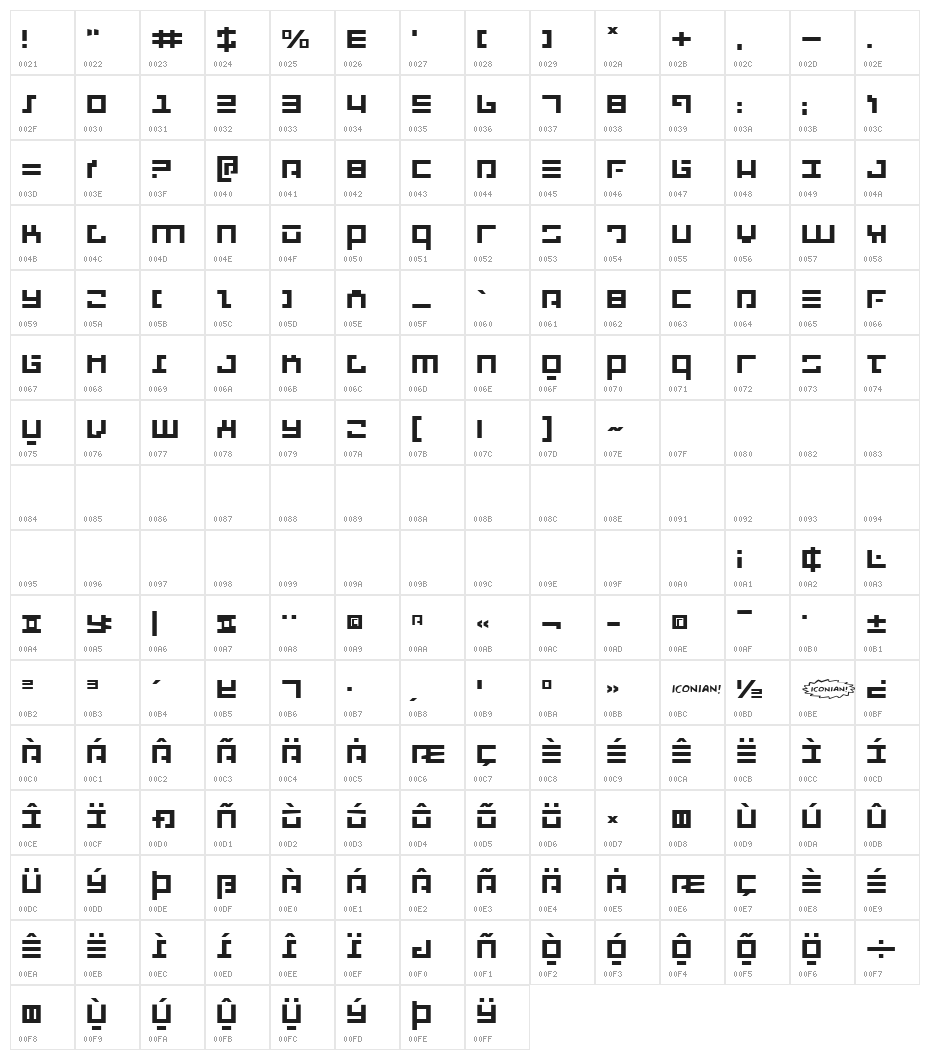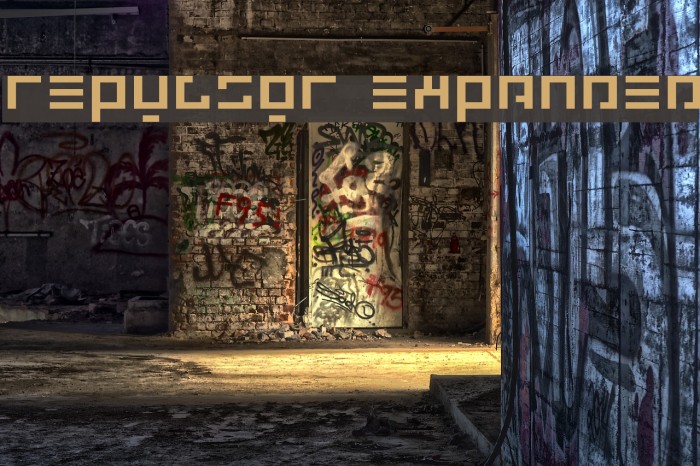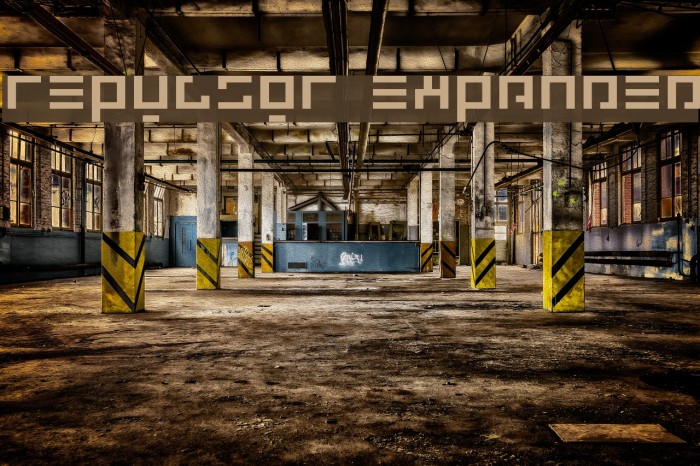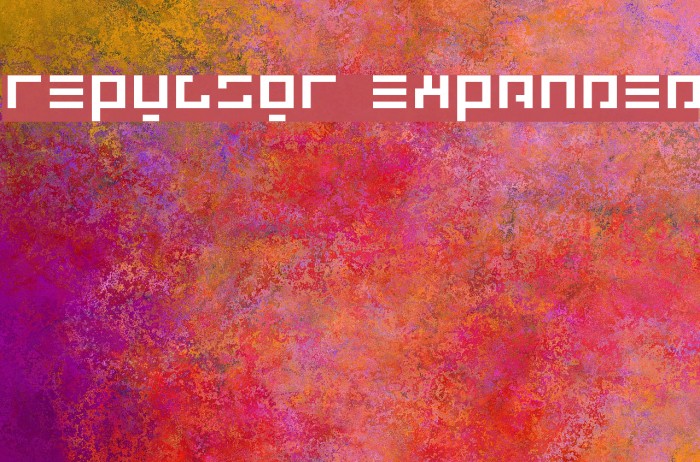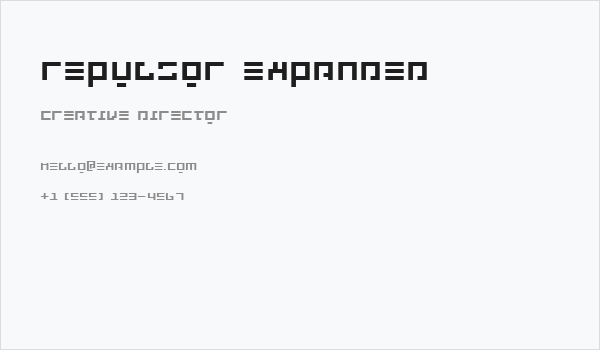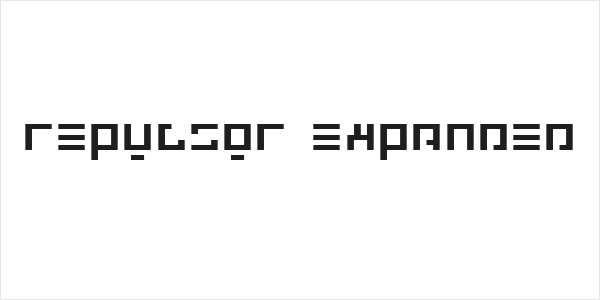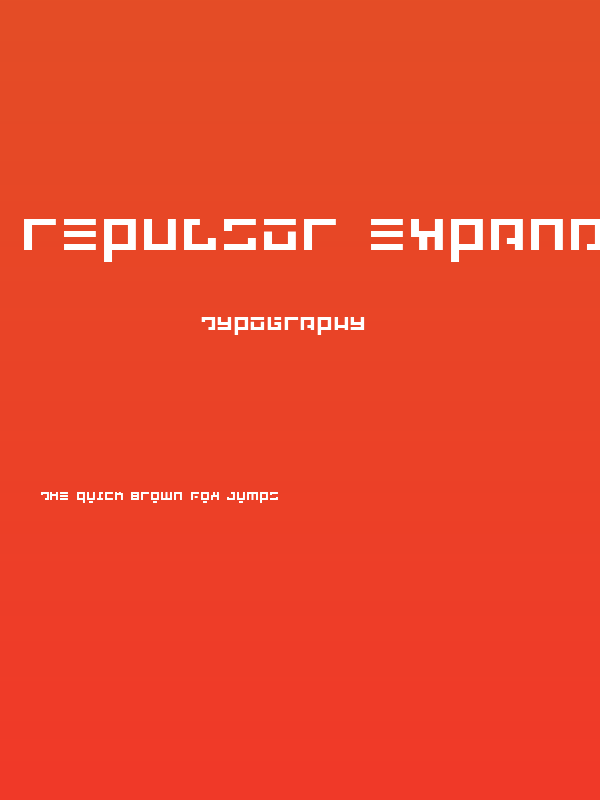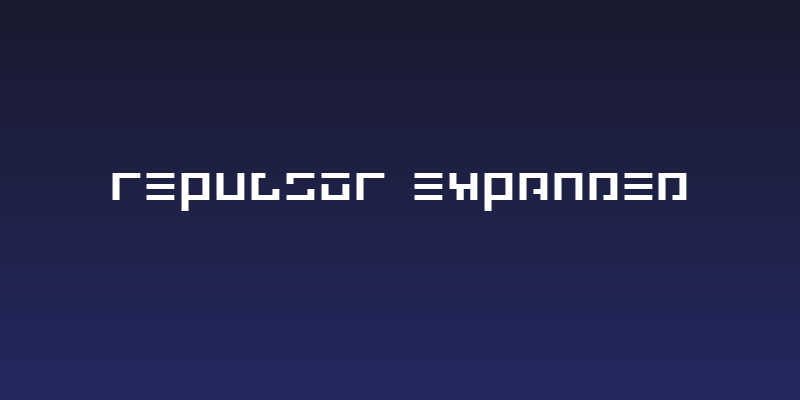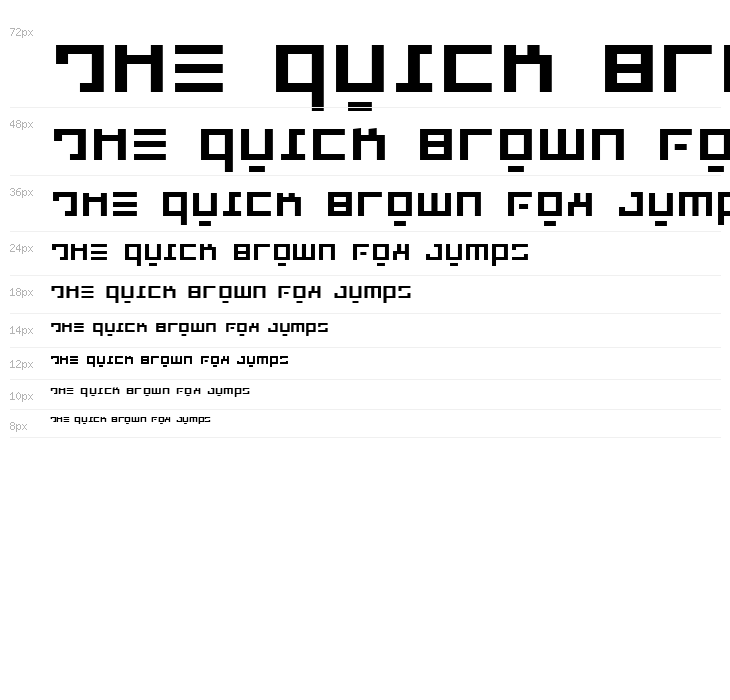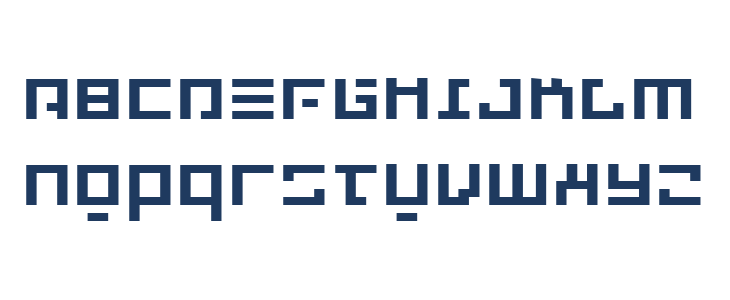
Repulsor Expanded Font
Repulsor Expanded Description
This font features a bold, geometric design with a futuristic and digital aesthetic. The characters are constructed with thick, block-like strokes that create a sense of strength and modernity. The angular shapes and sharp corners give it a distinctive, tech-inspired look. The uppercase and lowercase letters maintain a consistent style, with the lowercase appearing as smaller versions of the uppercase. Numbers and special characters follow the same design principles, ensuring uniformity across the typeface. This font's expanded width and solid structure make it stand out, ideal for attention-grabbing designs.
| Proposed Projects | Ideal for technology branding, video game titles, sci-fi movie posters, and digital interfaces. |